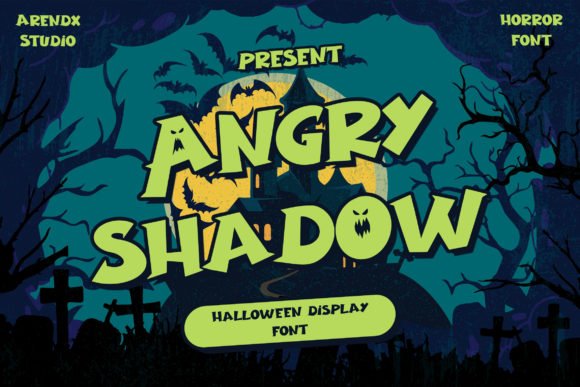
The Perfect Storm of Creativity: Unleashing the Power of Angry Shadow Font
Have you ever stared at a blank canvas, eager to bring your latest project to life, but struggling to find the perfect font to set the tone? We’ve all been there. The blank page stares back at us, waiting for that spark of inspiration that will ignite our creative fire. And then, it hits us – the perfect font that elevates our design from ordinary to extraordinary.
Enter Angry Shadow Font, a bold and edgy display font that’s guaranteed to take your creations to the next level. With its thick, funky letters, this font is the perfect addition to any designer’s library. Whether you’re working on a logo, poster, or social media graphic, Angry Shadow Font has the power to elevate your design and leave a lasting impression on your audience.
Angry Shadow Font Key Features
- Font Style: A bold, distressed font with a shadow effect, giving it a unique and edgy appearance.
- Unique Characteristics: The Angry Shadow Font features a distressed texture and a subtle shadow effect, giving it a dynamic and eye-catching appearance.
Angry Shadow Font Review
I recently had the chance to work with the “Angry Shadow Font” and here’s my honest take on it. ✨ The font’s bold, edgy design makes it perfect for projects that require a sense of intensity or drama. The intricate details and texture add a level of depth that’s hard to find in other fonts. I also appreciate how the font’s irregularities give it a unique, handmade feel that’s great for creating a sense of character.
- Unique, bold design
- Great for projects that require a sense of intensity or drama
- Deep, textured details add depth to the font
- Handmade feel adds character to the design
However, I do have a few concerns. ⚠️ The font’s irregularities, while charming, can also make it difficult to read in certain contexts. I found that the font works best in larger sizes and with clear, concise typography to balance out the boldness of the font. Additionally, the font may not be suitable for projects that require a clean, minimalist aesthetic.
Overall, I think the “Angry Shadow Font” is a great addition to any designer’s toolkit, but it’s essential to use it thoughtfully and in the right context. With a clear understanding of its strengths and limitations, you can create some truly striking designs that make a lasting impression.
Angry Shadow Font is best used for creating bold, attention-grabbing headlines or titles. To get the most out of it, use it sparingly and in combination with other fonts to create visual interest.
Angry Shadow Font is commonly used in:
- Headlines and titles for social media posts, blog articles, and website content.